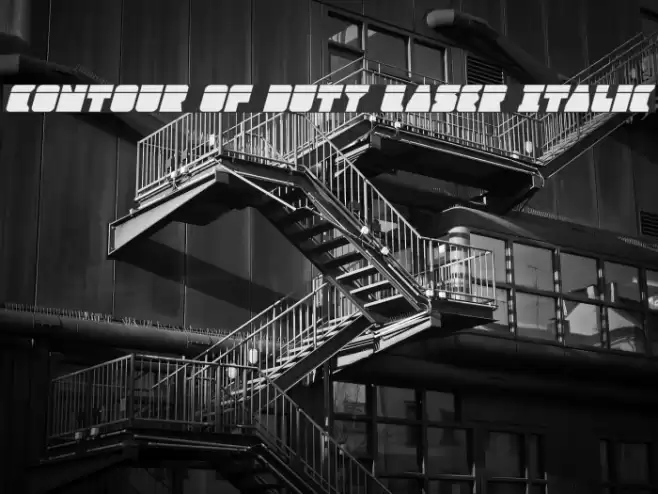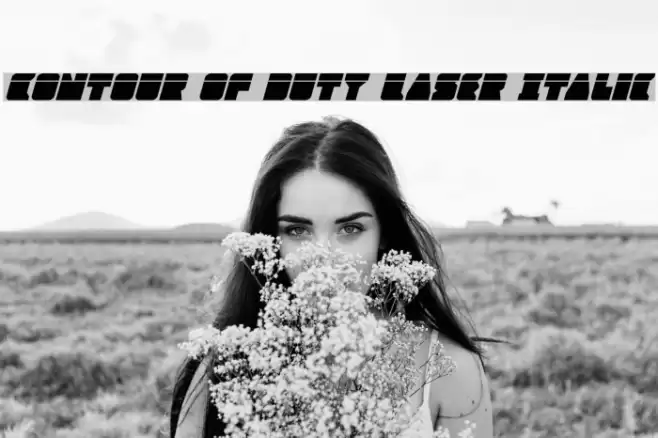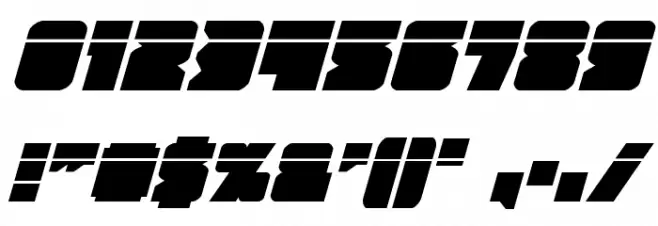
Contour of Duty Laser Italic Font
Contour of Duty Laser Italic Description
This font features a bold and futuristic design with a strong geometric influence. The characters are heavily stylized with sharp angles and a slanted orientation, giving it a dynamic and energetic appearance. The thick strokes and solid fills create a sense of power and modernity, making it stand out in any design. The uppercase and lowercase letters maintain a consistent style, while the numerals and special characters are designed to match the overall aesthetic. This font is ideal for projects that require a bold statement and a contemporary feel.
A bold, futuristic font with geometric shapes and a slanted, dynamic style from Fancy fonts.
- Proposed Projects: Ideal for video game titles, tech branding, sci-fi posters, and modern advertising.
- Character Spacing: Tight